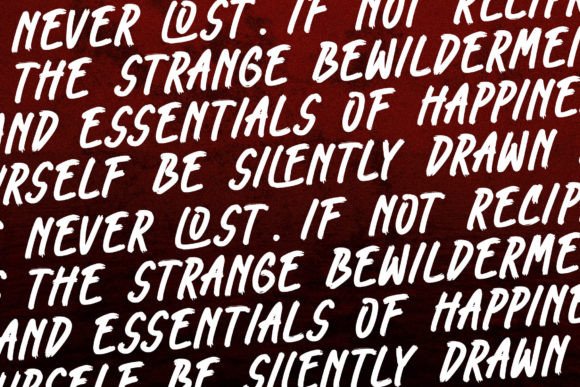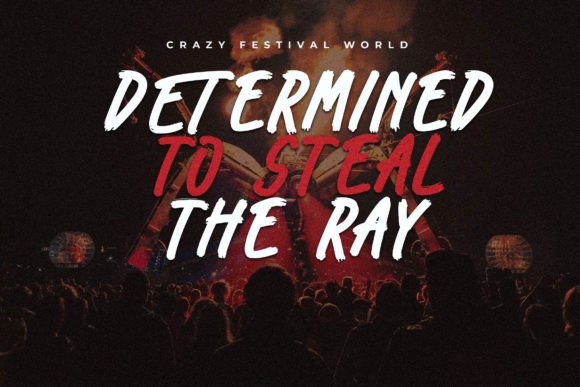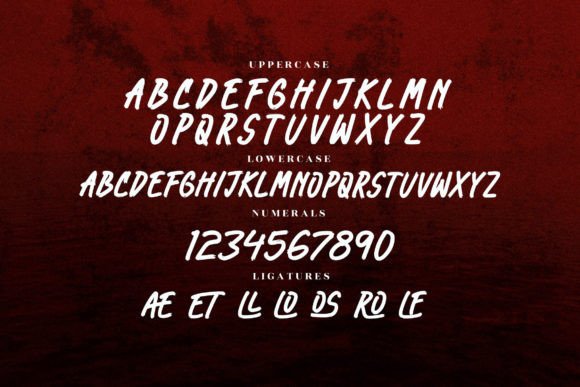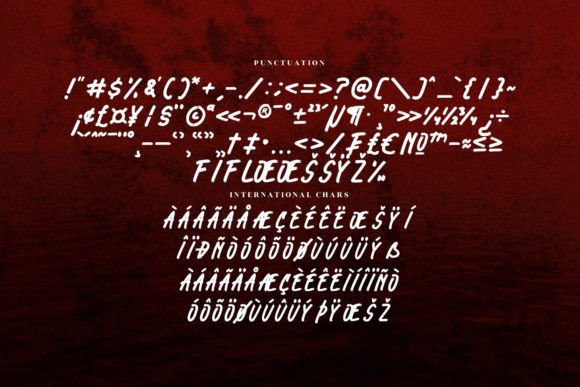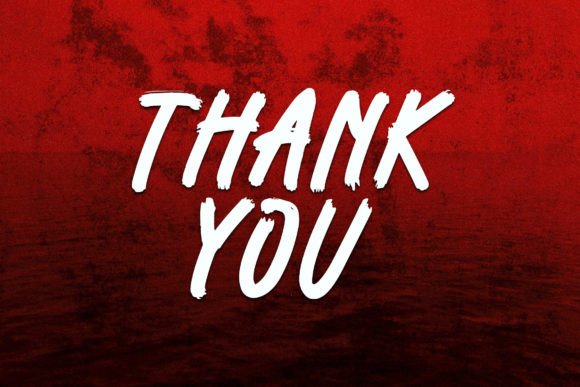
About Rolling Madness Font
Rolling Madness – Handbrush Spooky Handwritten font suitable for any projects such as logos, branding projects, homeware designs, product packaging, mugs, quotes, posters, shopping bags, t-shirts, book covers, name cards, invitation cards, greeting cards, labels, photography, watermark, special events, and all your other lovely projects that need a beautiful script taste.